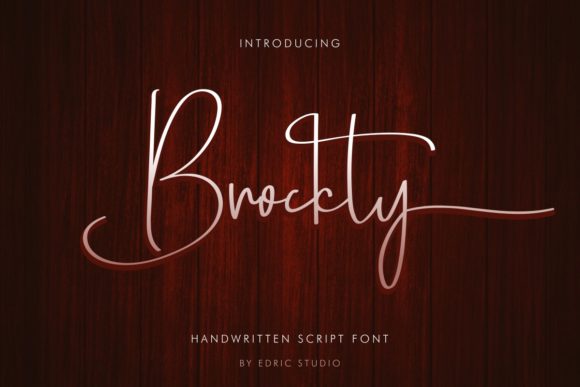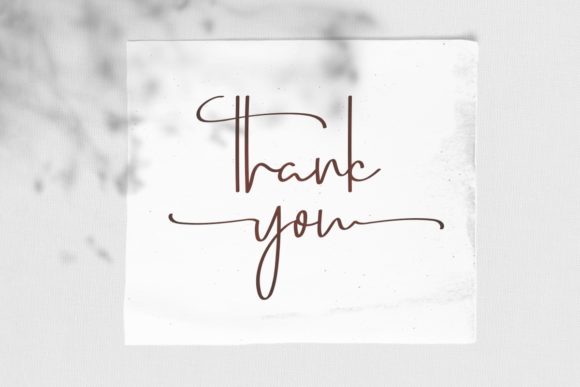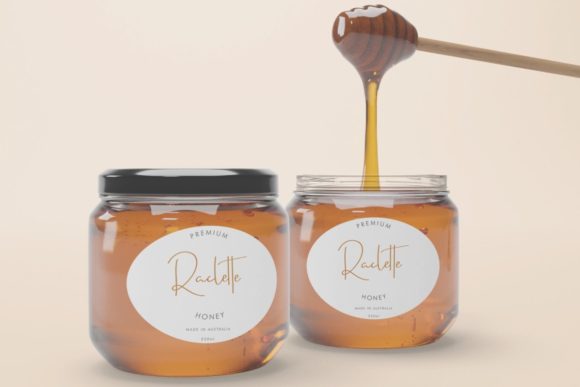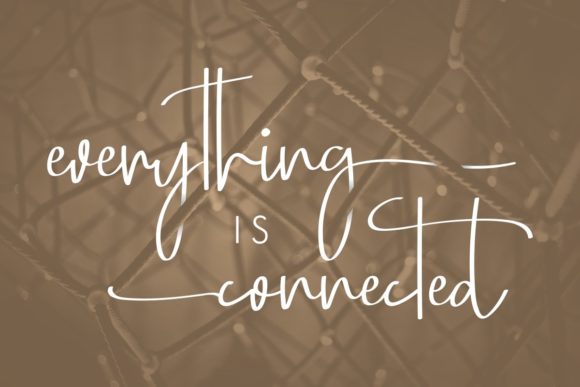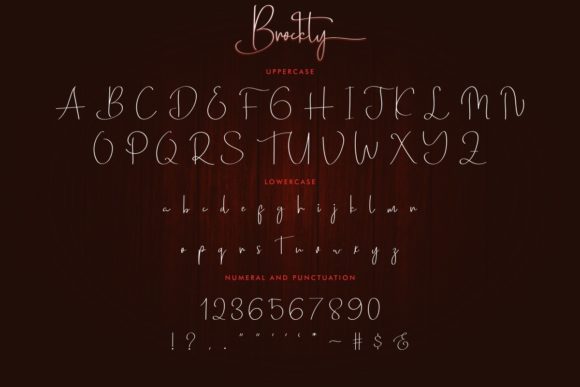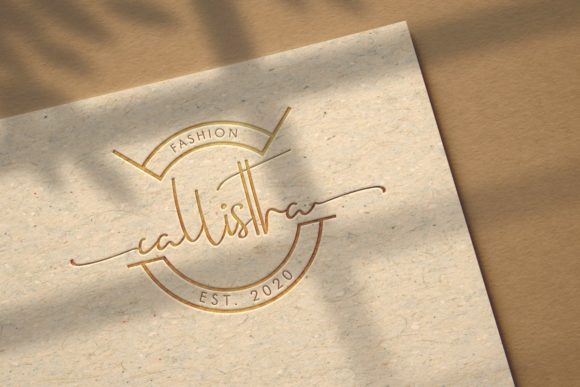
About Brockly Font
Brockly is a delicate script font. It will add a luxury spark to any design project that you wish to create! This font is PUA encoded which means you can access all of the amazing glyphs and ligatures with ease!